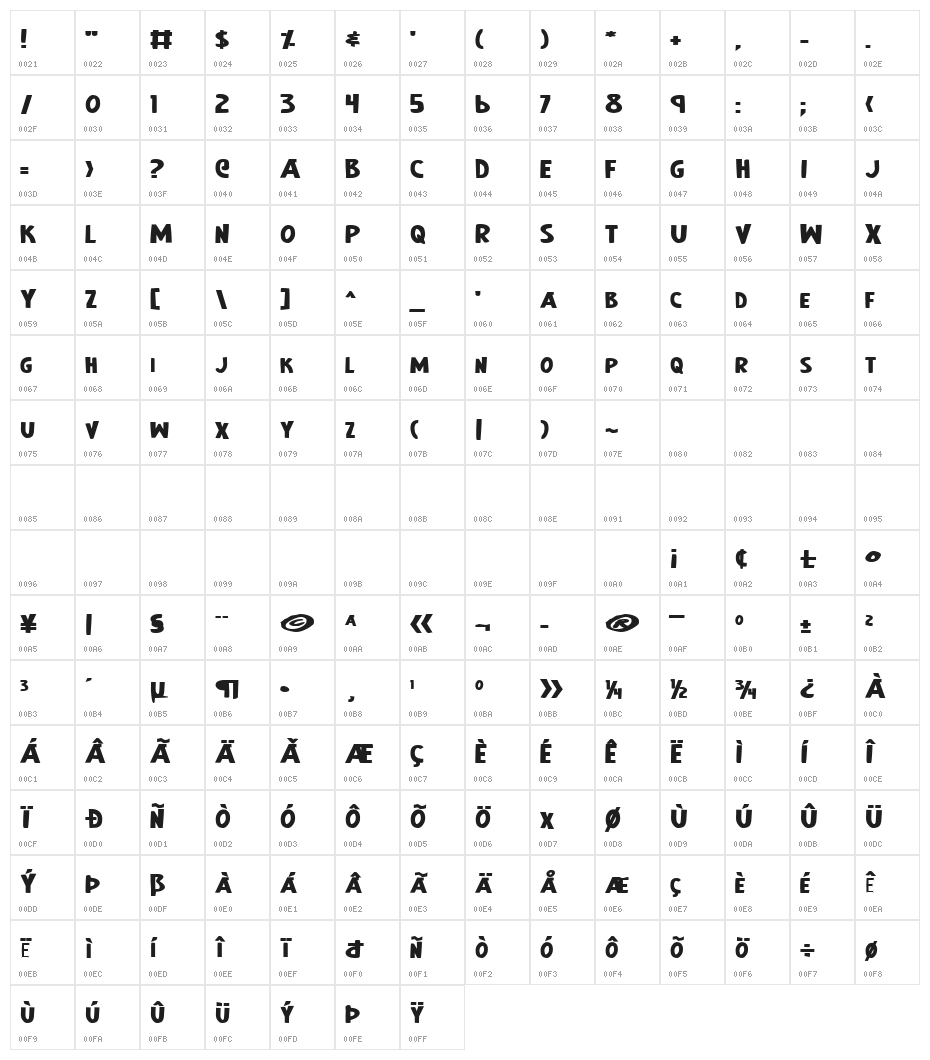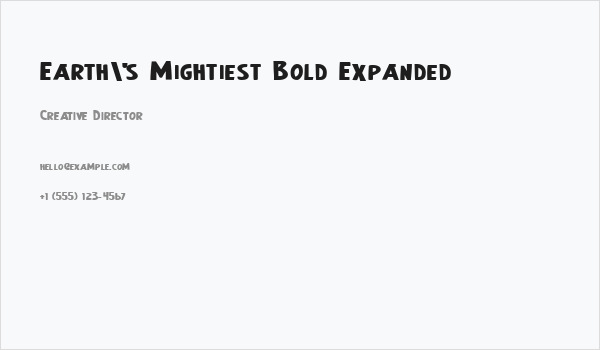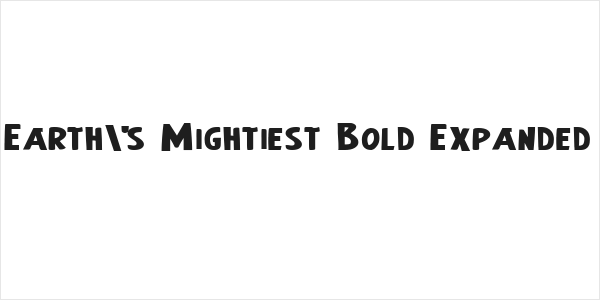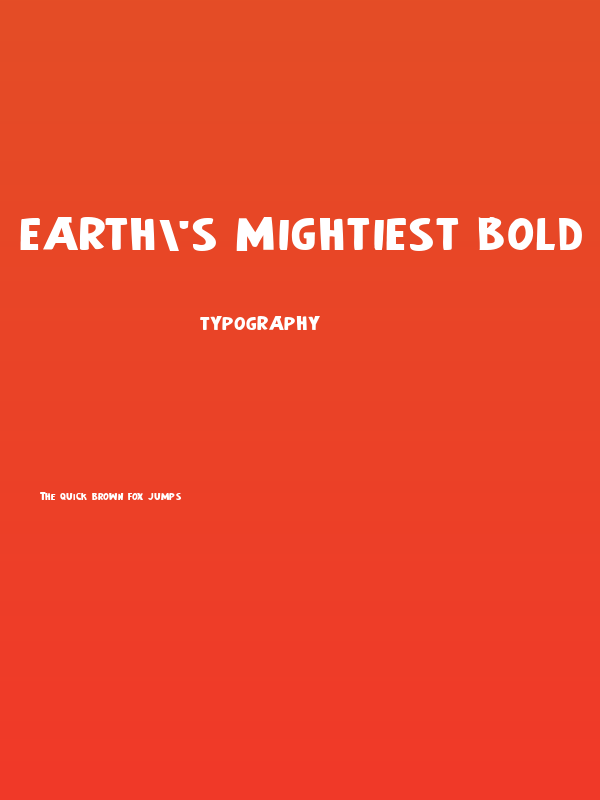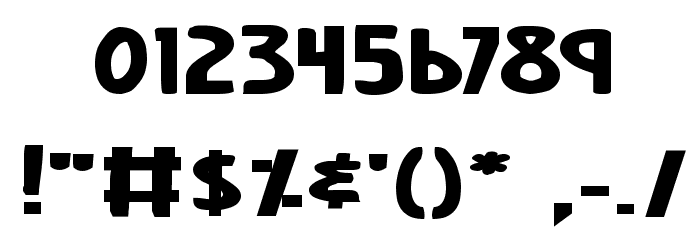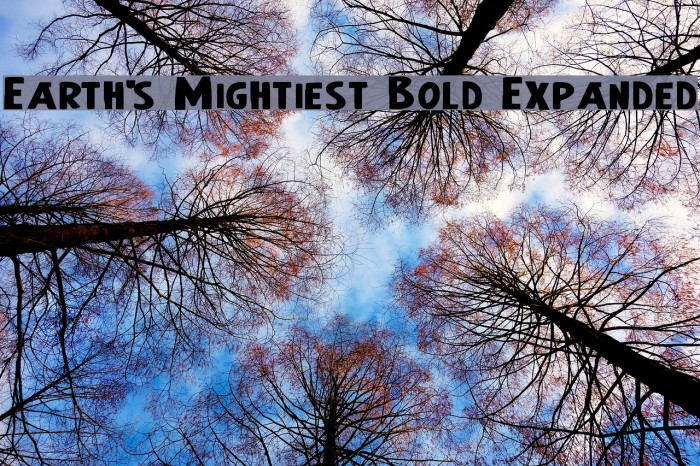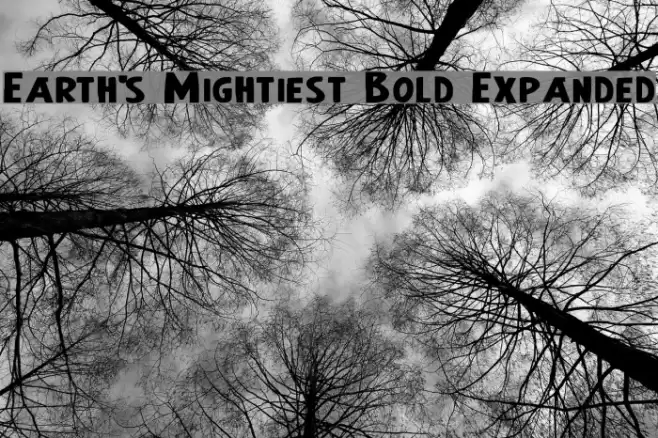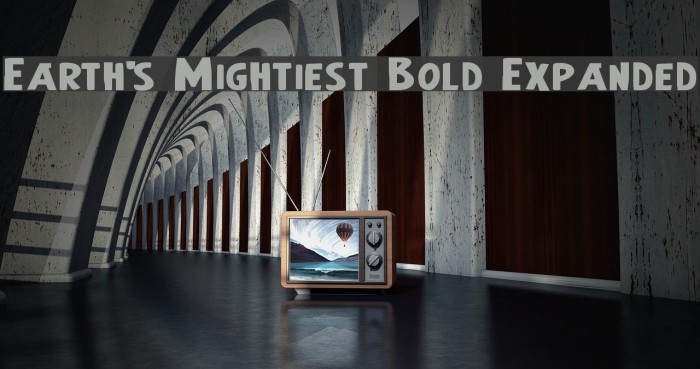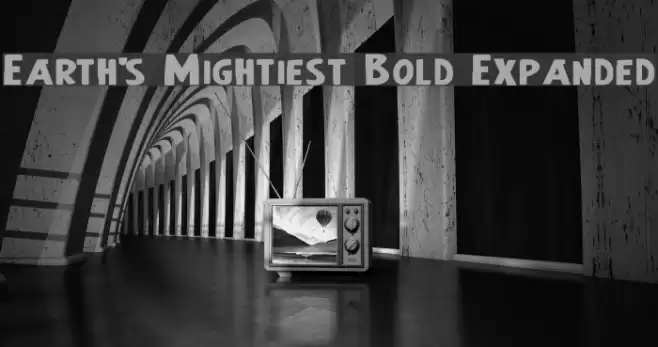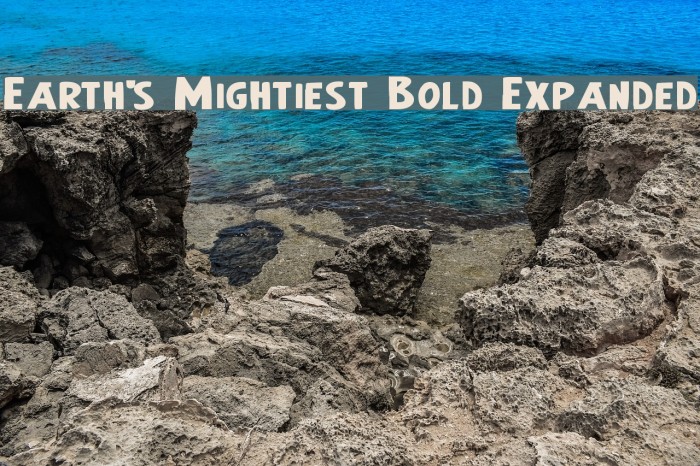
Earth's Mightiest Bold Expanded Font
Earth's Mightiest Bold Expanded Description
This font features bold, expansive characters with a strong presence, making it ideal for attention-grabbing designs. The uppercase letters are robust and slightly condensed, while the lowercase letters maintain a consistent weight, ensuring readability. The numerals are distinct and well-defined, complementing the overall bold aesthetic. Special characters are creatively designed, adding a unique flair to the font. The style is modern and impactful, suitable for projects that require a commanding visual element.
| Proposed Projects | Ideal for posters, headlines, branding, and any design requiring a strong visual impact. |